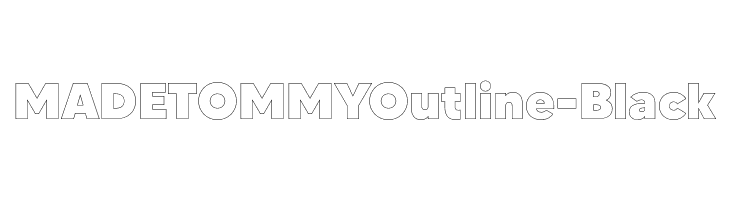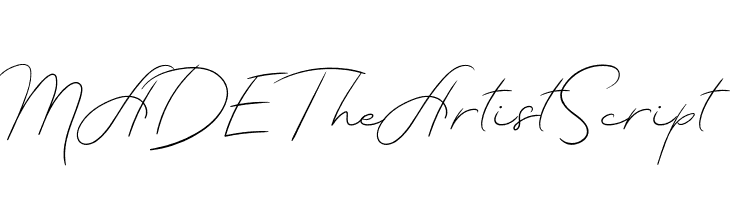
An elegant and fluid script font with graceful curves and a natural handwriting style.
A modern, geometric sans-serif font with clean lines and uniform strokes.
A bold, modern sans-serif font with strong geometric shapes.
A bold, modern sans-serif font with clean lines and strong presence.
A bold, modern typeface with thick strokes and a strong presence.
A modern, light sans-serif font with clean lines and excellent readability.
A modern, clean sans-serif font with excellent readability and balanced proportions.
A sleek, minimalist font with thin strokes and a modern aesthetic.
A modern, geometric outline font with consistent stroke width and high legibility.
A bold, geometric sans-serif font with a modern outline style.